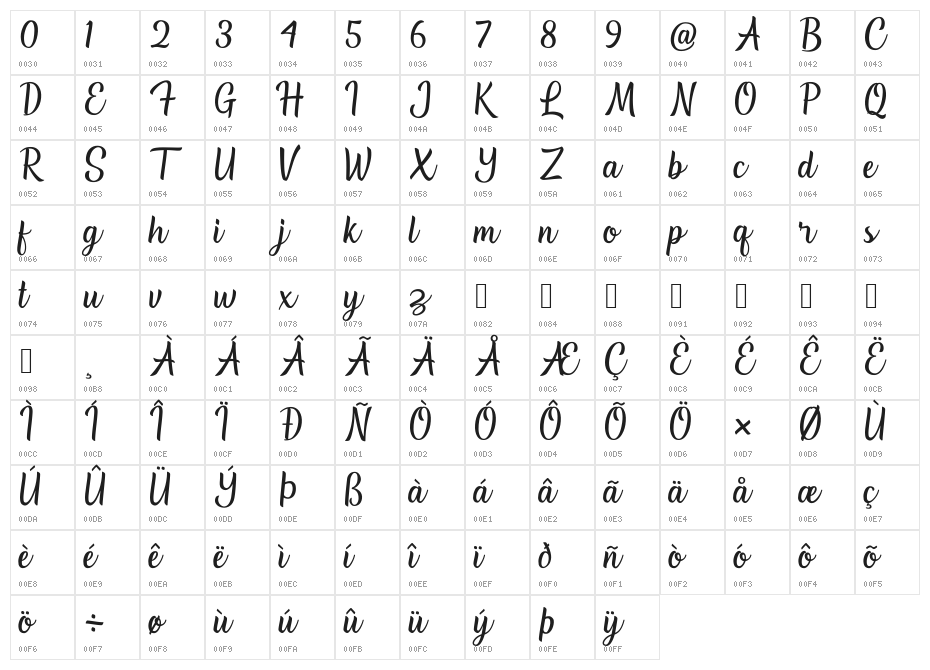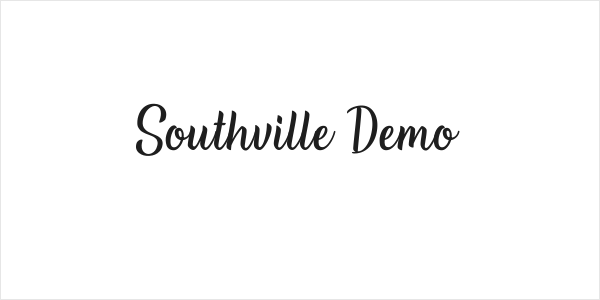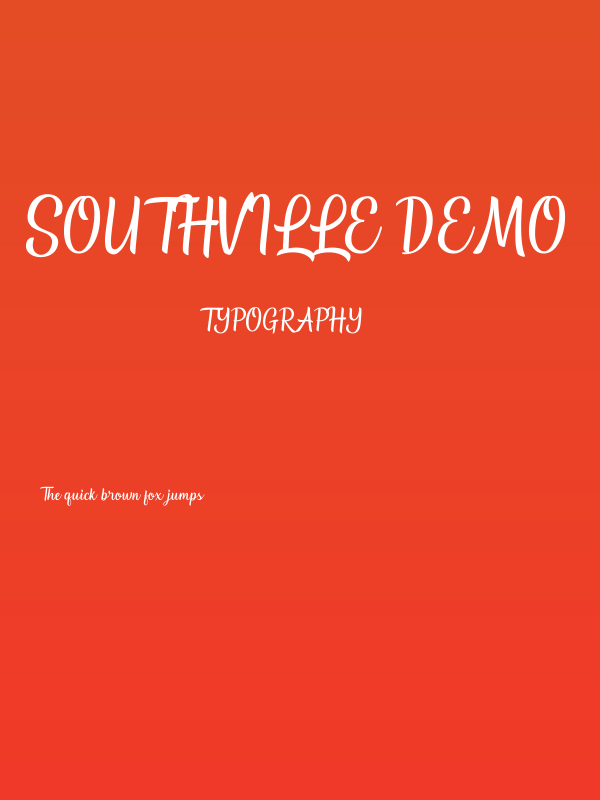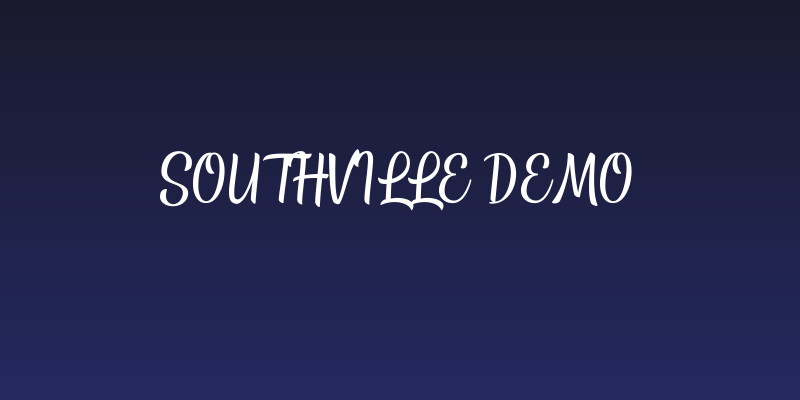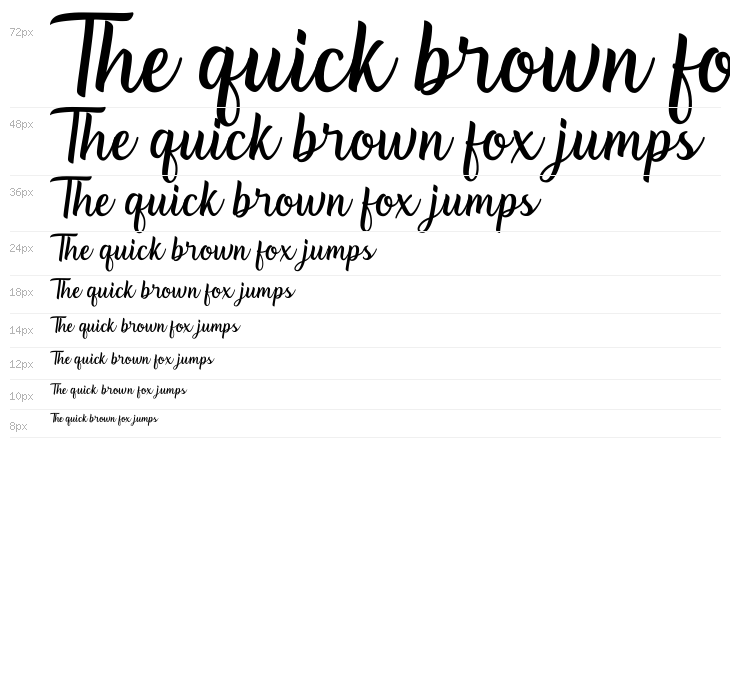
Southville Demo Font
Southville Demo Description
This font features a flowing, cursive style that exudes elegance and sophistication. The characters are interconnected with smooth, sweeping strokes, giving it a handwritten appearance. The uppercase letters are bold and slightly slanted, while the lowercase letters maintain a consistent flow with a touch of flair. The numerals are clear and distinct, matching the overall style with their rounded forms. Special characters are seamlessly integrated, maintaining the font's cohesive look. This font is perfect for projects that require a personal, artistic touch, such as invitations, greeting cards, and branding materials.
| Overall Style | Elegant, Artistic |
| Use Case | Headlines, Invitations, Artistic projects |
| Proposed Projects | Ideal for wedding invitations, greeting cards, branding, and artistic projects. |